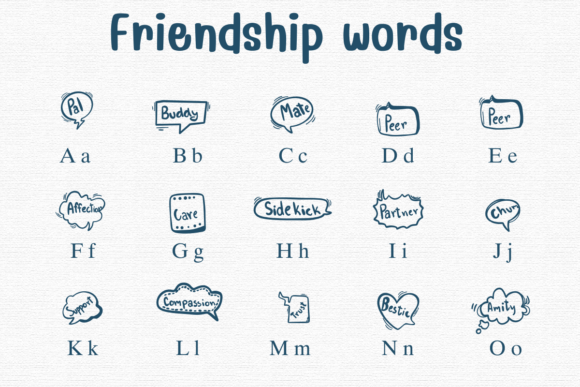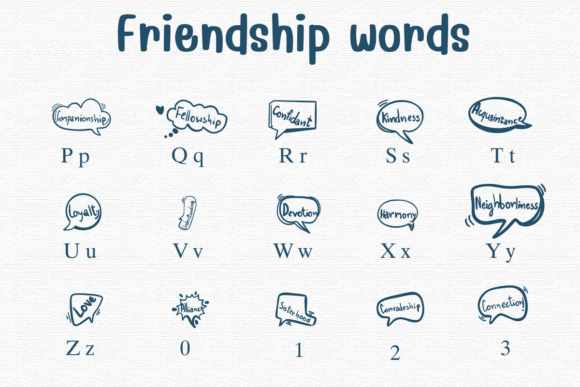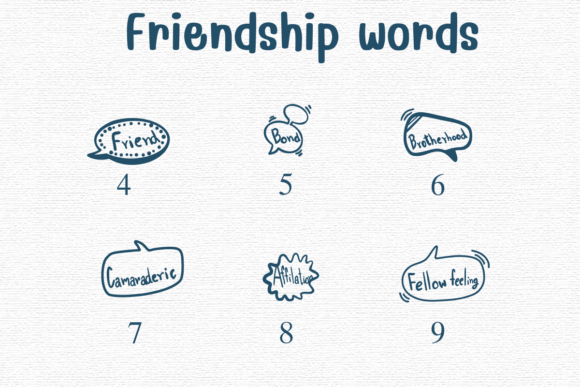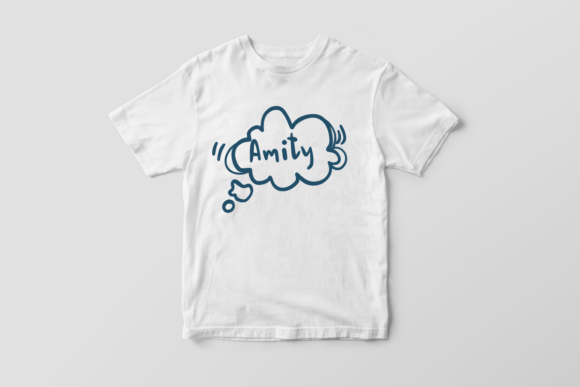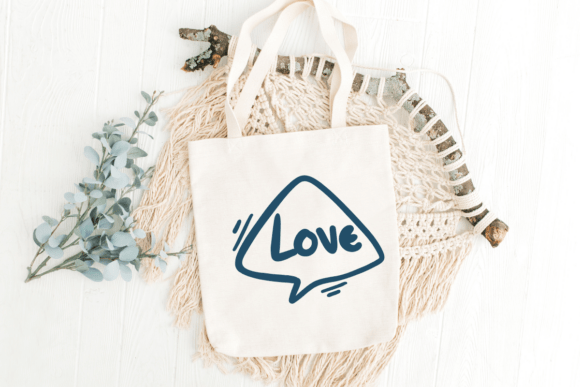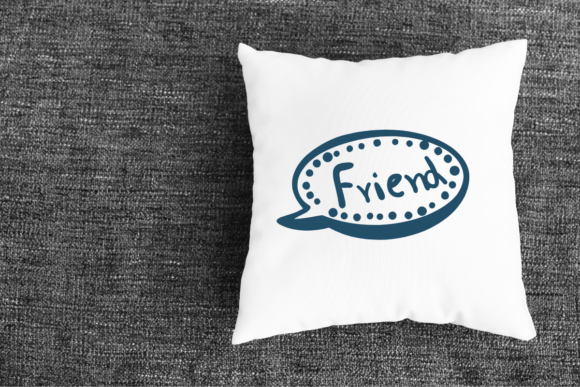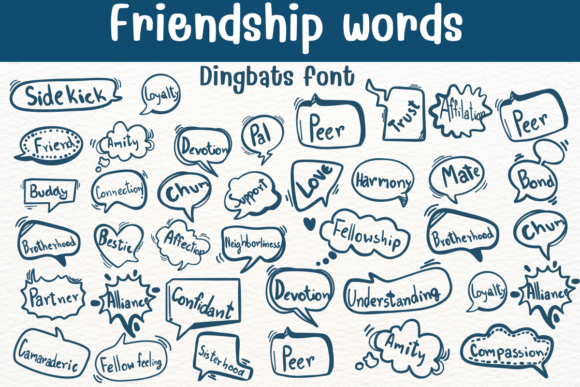
Introducing Friendship Words Font: A Heartwarming Dingbats Font for Celebrating Human Connection
Are you a designer, crafter, or DIY enthusiast looking for a unique and meaningful way to express love, loyalty, and connection in your projects? Look no further than the Friendship Words Font, a delightful dingbats font filled with hand-drawn word bubbles that convey the warmth and joy of friendship. In this article, we’ll dive into the features and benefits of this charming font, and explore how it can be used to create beautiful designs that celebrate human connection.
What is Friendship Words Font?
Friendship Words Font is a one-of-a-kind dingbats font that features hand-drawn word bubbles with phrases that express the beauty of friendship. Each doodle includes playful phrases like “Buddy,” “Devotion,” “Affection,” and more, all presented in a fun and playful comic-style speech bubble. This font is the perfect way to add a personal touch to your designs, and to convey the emotions and sentiments that make friendships so special.
Key Features of Friendship Words Font
- Hand-drawn word bubbles: Each phrase is carefully illustrated in a unique and playful word bubble, giving your designs a personal and human touch.
- Friendship-themed phrases: The font includes a range of phrases that celebrate love, loyalty, and connection, such as “Buddy,” “Devotion,” “Affection,” and more.
- Playful comic-style speech bubbles: The word bubbles are designed in a fun and playful comic style, adding a lighthearted and whimsical touch to your designs.
- Perfect for various projects: Friendship Words Font is ideal for use in cards, scrapbooks, journals, and other designs that celebrate friendship and human connection.
Uses for Friendship Words Font
Friendship Words Font is a versatile font that can be used in a wide range of projects, including:
- Greeting cards: Add a personal touch to your greeting cards with heartfelt phrases and playful word bubbles.
- Scrapbooking: Use Friendship Words Font to create beautiful and meaningful scrapbook pages that celebrate special memories and friendships.
- Journals and planners: Add inspirational quotes and friendship-themed phrases to your journals and planners, making them a joy to use and reflect on.
- Social media graphics: Use the font to create engaging social media graphics that express your appreciation for friends and loved ones.
Benefits of Using Friendship Words Font
By using Friendship Words Font in your designs, you’ll enjoy a range of benefits, including:
- Unique and eye-catching designs: The font’s hand-drawn word bubbles and playful phrases will add a distinctive touch to your designs, setting them apart from the rest.
- Emotional connection: The font’s friendship-themed phrases will help you create designs that resonate with your audience on an emotional level.
- Time-saving: With Friendship Words Font, you’ll have access to a library of pre-designed phrases and word bubbles, saving you time and effort in your design process.
Friendship Words Font is a heartwarming dingbats font that’s perfect for designers, crafters, and DIY enthusiasts who want to create beautiful and meaningful designs that celebrate human connection. With its hand-drawn word bubbles, friendship-themed phrases, and playful comic-style speech bubbles, this font is sure to inspire your creativity and add a personal touch to your projects. So why wait? Download Friendship Words Font today and start creating stunning designs that express your love and appreciation for friends and loved ones.
Whether you’re a seasoned designer or a crafting enthusiast, Friendship Words Font is a valuable addition to your creative toolkit. So go ahead, explore the font’s features and benefits, and discover the joy of creating with Friendship Words Font.